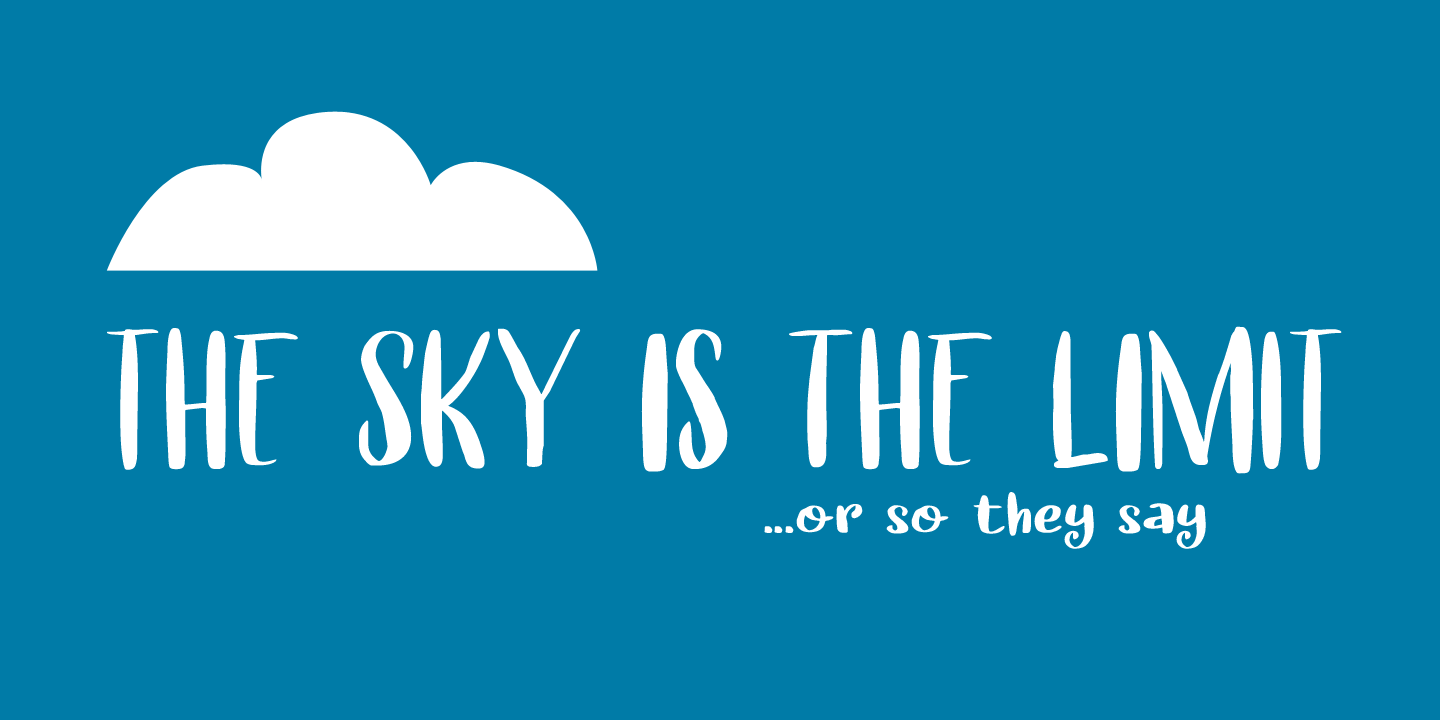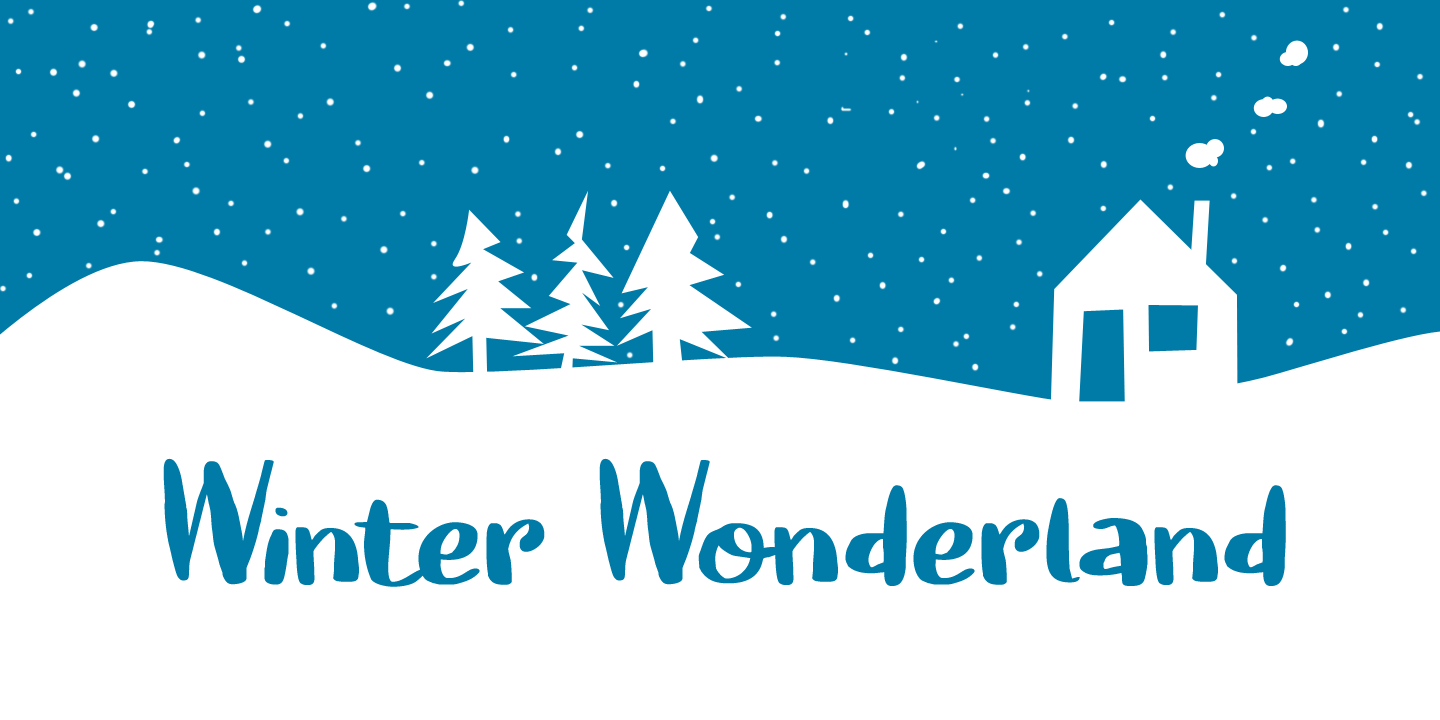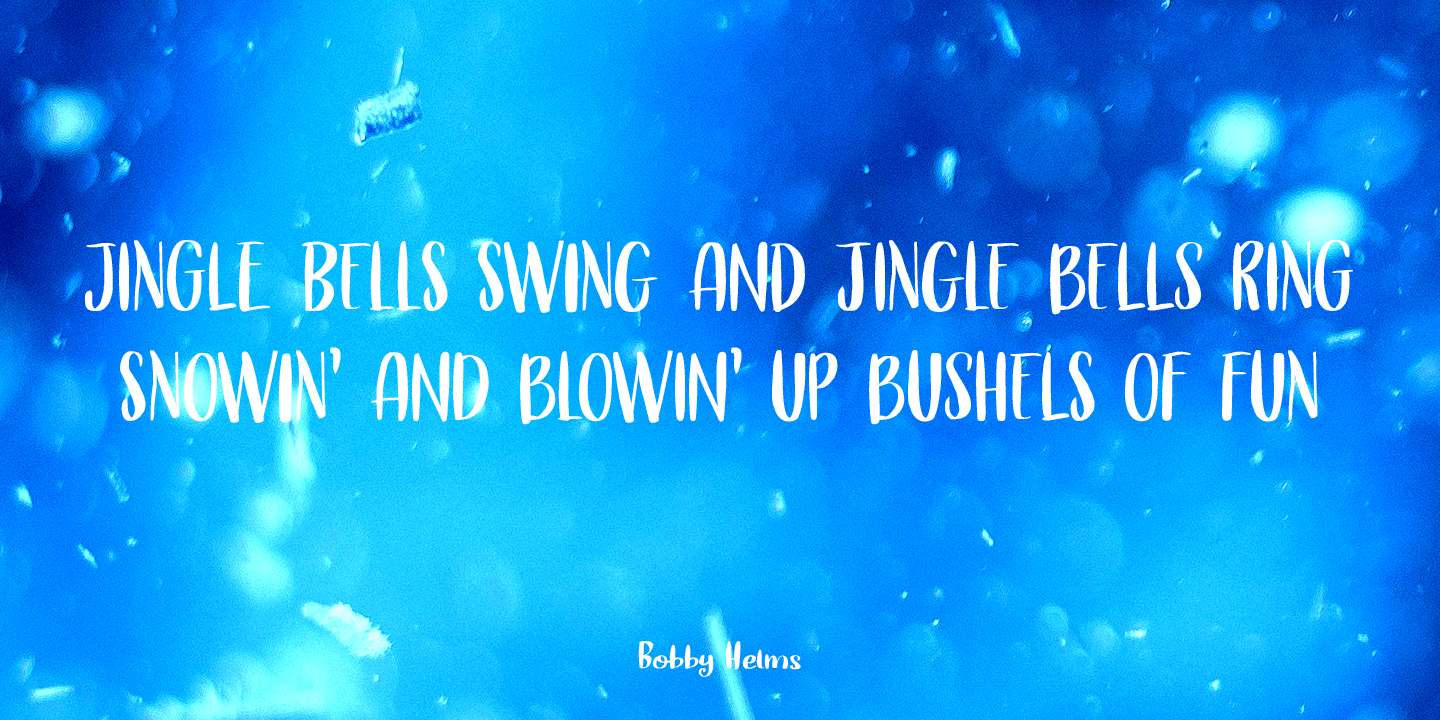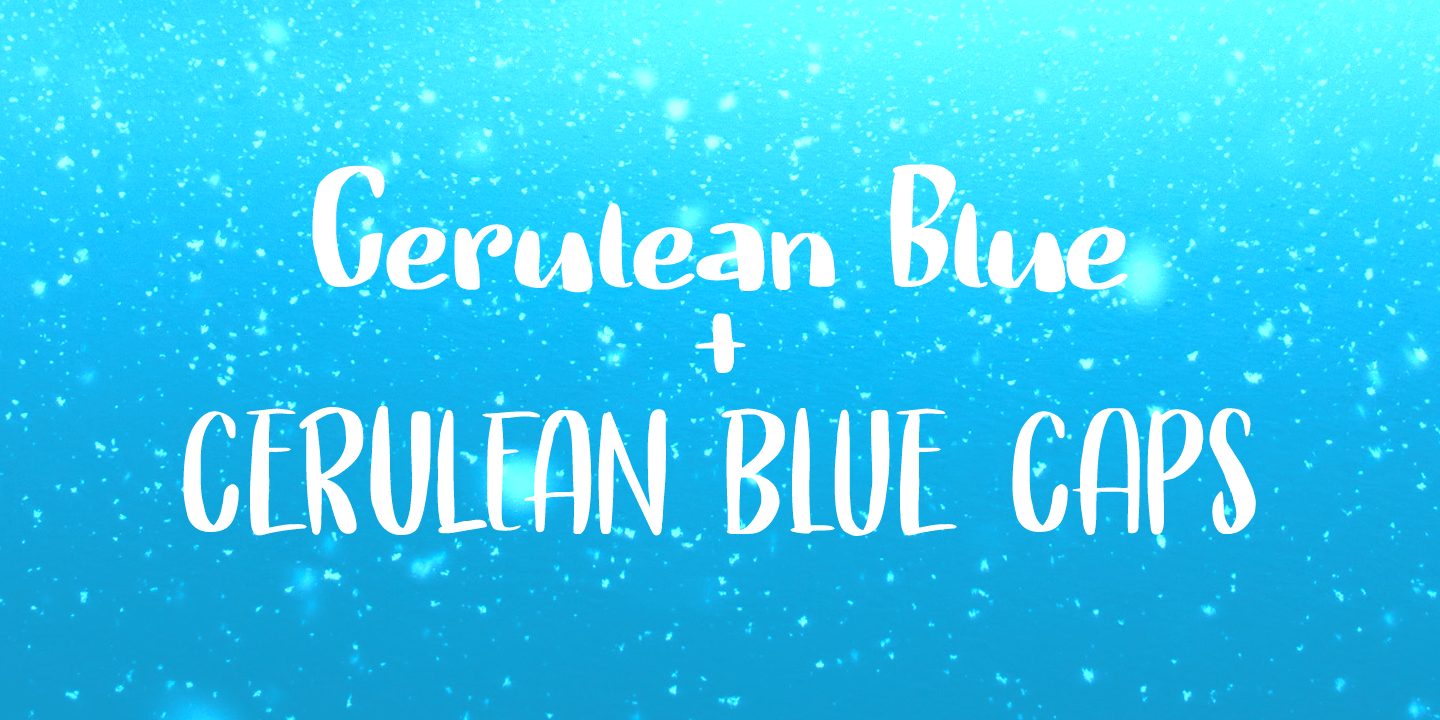
Cerulean Blue
Cerulean comes from the Latin word caeruleus, meaning dark blue. I have always liked this color, so I decided to name a font after it.
Cerulean Blue is a handmade brush font family, consisting of a nice handwritten font and a caps font. Both fonts come with their Italics. Cerulean Blue can be used for just about any design, but product packaging and book covers come to mind.
Cerulean Blue by Hanoded